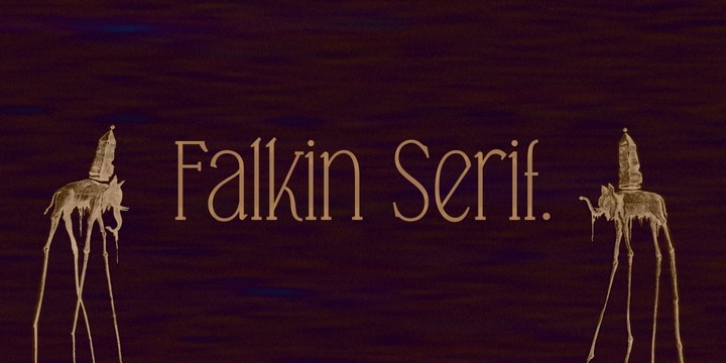
This is a 1900’s serif typeface designed by Måns Grebäck. It comes as a thin regular and a thick bold, as well as italic versions of each of the weights.